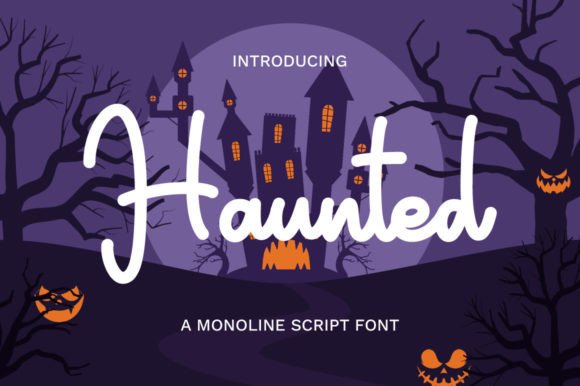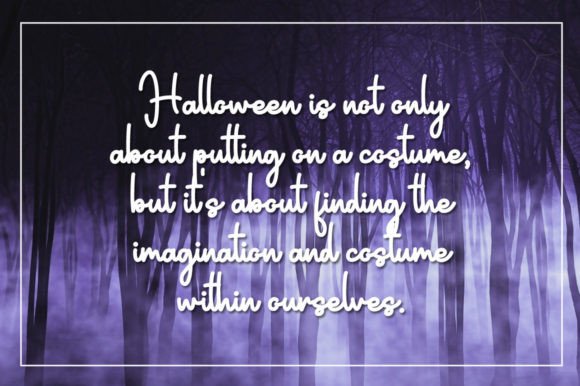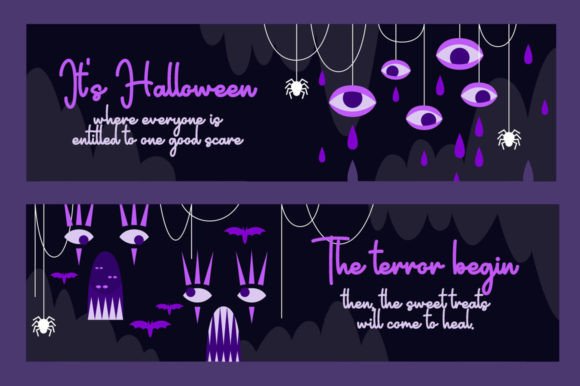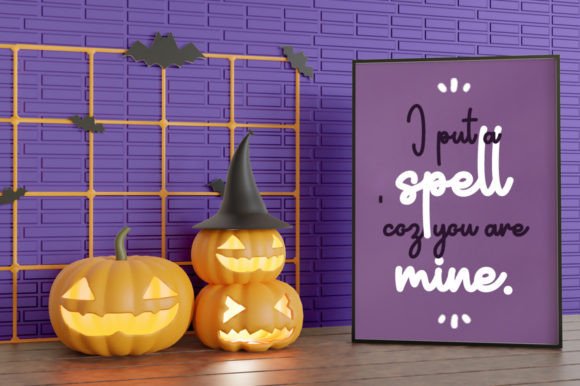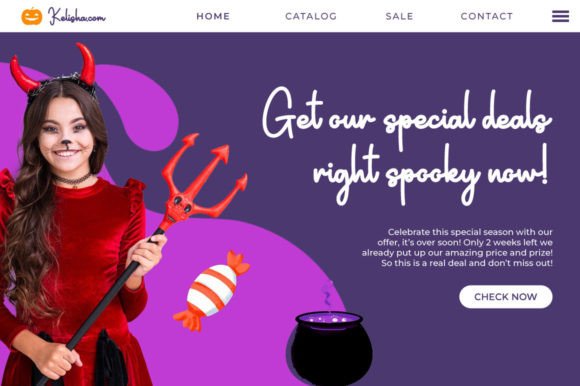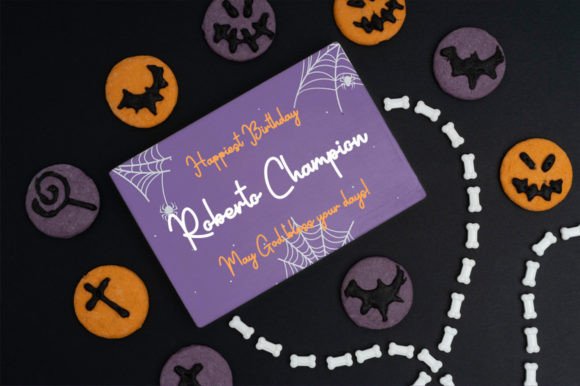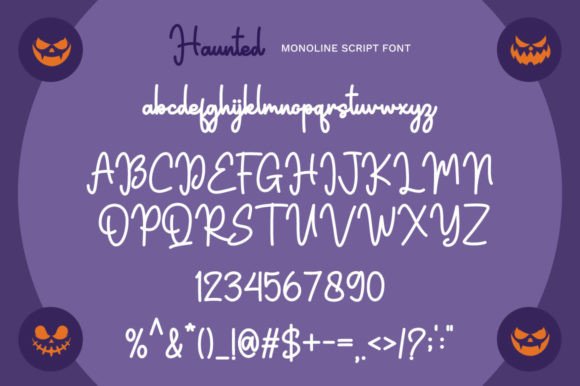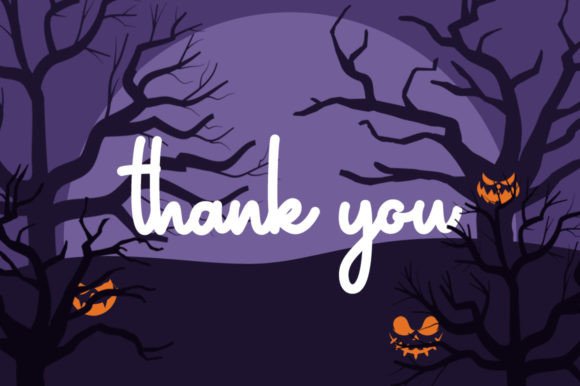
Haunted Font
About Haunted Font
“Haunted” is a delightful handwritten font that exudes a sense of playfulness. Its daintiness and joyful appearance make it an ideal choice for various design projects, especially those that require a romantic and personalized touch, such as wedding invitations and cards.
The “Haunted” font adds a touch of whimsy and charm to your projects. Its handwritten style carries a sense of character and lightheartedness, making your designs feel warm and inviting.
One of the font’s standout qualities is its suitability for romantic and personalized designs. Whether you’re crafting wedding invitations, creating heartfelt cards, or expressing your creativity in other ways, “Haunted” infuses your work with a romantic and whimsical essence.
The font’s versatility allows it to adapt to various applications. Whether you’re working on personal projects or professional endeavors, “Haunted” brings a sense of joy and individuality to your work.
For special occasions like weddings, birthdays, or events, “Haunted” can be the perfect choice for crafting invitations, place cards, and thank-you notes that evoke a sense of celebration and warmth. It’s like adding a personal touch to your cherished moments.
In summary, “Haunted” is more than just a font; it’s a creative tool that brings a playful and romantic spirit to your projects. Whether you’re a professional designer or someone who enjoys crafting and creating personalized items, “Haunted” is here to make your designs come alive with its fun and handwritten style. Embrace the whimsy of “Haunted” and watch your projects shine with a touch of joy and individuality.